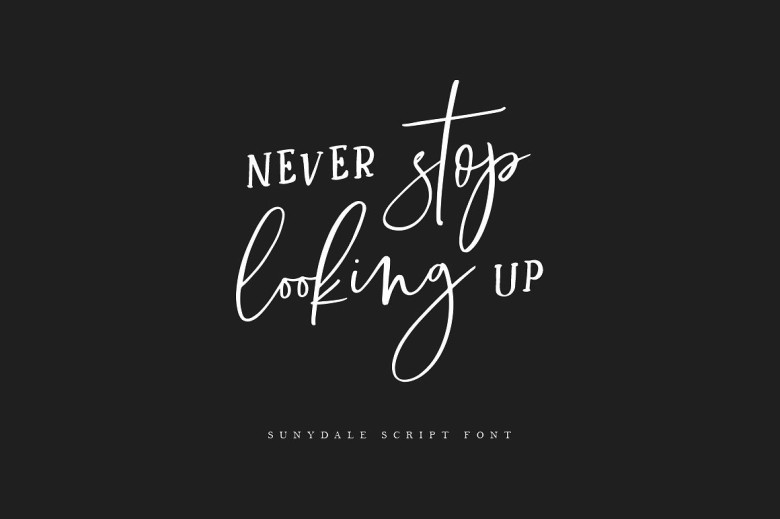
Sunydale Font Family
Hello friend, Introducing Sunydale, is font duo including script and serif! It is was designed and shares by sizimon. Classy, contemporary pair of script and serif fonts. It is free-flowing, feminine, fashionable and friendly. Sunydale is perfect for fashion, e-commerce brands, trend blogs, or any business that wants to appear classy and chic.